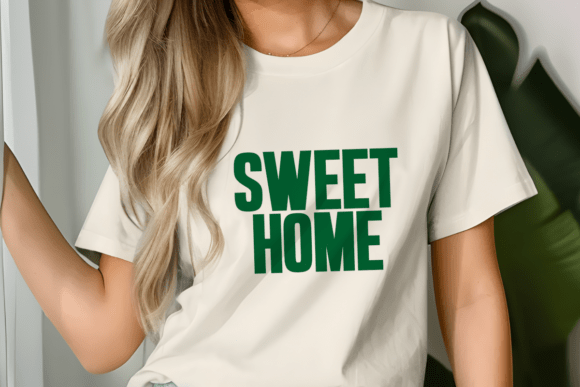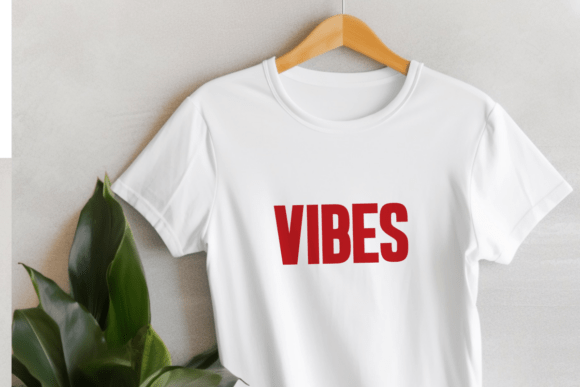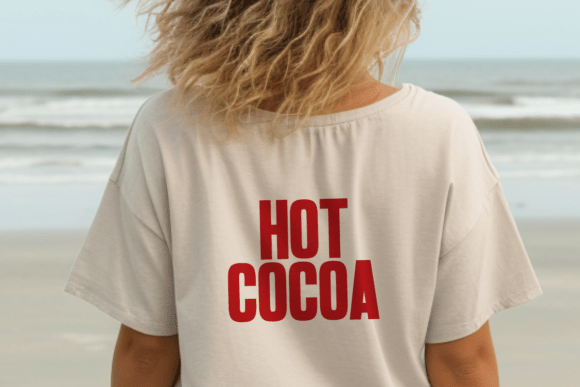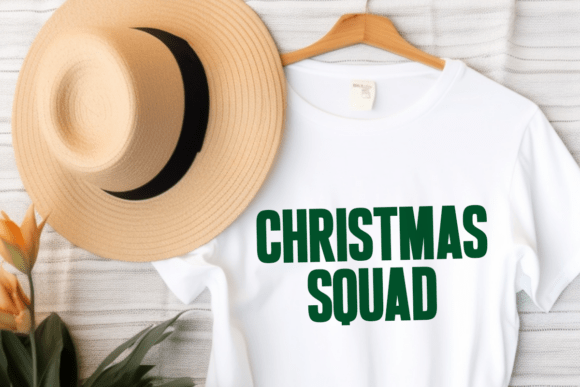
Introducing Dear Santa Font: The Perfect Blend of Modern and Vintage
Are you a designer, crafter, or DIY enthusiast looking for a font that can add a touch of magic to your creative projects? Look no further than Dear Santa Font, a modern sans serif font with a stunning vintage feel. This versatile font is perfect for a wide range of applications, from logos and branding to invitations, greeting cards, and more.
A Font that Combines Modern Simplicity with Vintage Charm
Dear Santa Font is a unique and stylish font that combines the simplicity of modern sans serif fonts with the charm of vintage typography. Its clean lines, elegant curves, and classic feel make it perfect for designers and crafters who want to add a touch of nostalgia to their work. Whether you’re creating a logo, a poster, or a handmade craft, Dear Santa Font is sure to impress.
One of the best things about Dear Santa Font is its versatility. This font can be used for a wide range of creative projects, including:
- Logos and branding: Create a professional and stylish logo for your business or personal brand.
- T-shirts and apparel: Add a touch of personality to your t-shirts, hoodies, and other apparel.
- Mugs and ceramics: Create personalized mugs, plates, and other ceramics that make perfect gifts.
- Invitations and greeting cards: Add a touch of elegance to your invitations and greeting cards.
- Posters and prints: Create eye-catching posters and prints for your home or office.
- Packaging and signs: Add a professional touch to your packaging and signs.
- Cutting boards and printables: Create personalized cutting boards and printables for your kitchen or craft room.
- Crafting and DIY projects: Add a touch of personality to your crafting and DIY projects, such as scrapbooking, card making, and more.
Why Choose Dear Santa Font?
So why choose Dear Santa Font over other fonts? Here are just a few reasons:
- Unique and stylish: Dear Santa Font is a one-of-a-kind font that will add a touch of personality to your creative projects.
- Versatile: This font can be used for a wide range of applications, from logos and branding to invitations and crafting.
- Easy to read: Dear Santa Font is clear and easy to read, making it perfect for body text and headlines.
- Scalable: This font can be scaled up or down without losing its quality, making it perfect for large and small projects.
Tips for Using Dear Santa Font
Here are a few tips for getting the most out of Dear Santa Font:
- Experiment with different sizes: Try using Dear Santa Font in different sizes to create visual interest and hierarchy.
- Pair it with other fonts: Dear Santa Font pairs well with other sans serif fonts, as well as script fonts and serif fonts.
- Use it for headlines and body text: Dear Santa Font is clear and easy to read, making it perfect for both headlines and body text.
- Add a personal touch: Use Dear Santa Font to add a personal touch to your creative projects, such as a handmade craft or a personalized gift.
Dear Santa Font is a versatile and stylish font that is perfect for designers, crafters, and DIY enthusiasts. Its unique blend of modern simplicity and vintage charm makes it perfect for a wide range of creative projects. Whether you’re creating a logo, a poster, or a handmade craft, Dear Santa Font is sure to impress. So why wait? Download Dear Santa Font today and start adding a touch of magic to your creative projects!